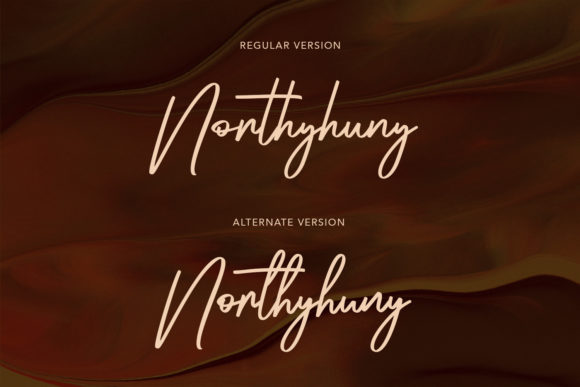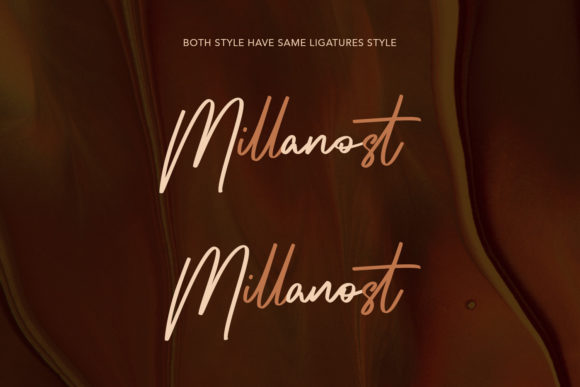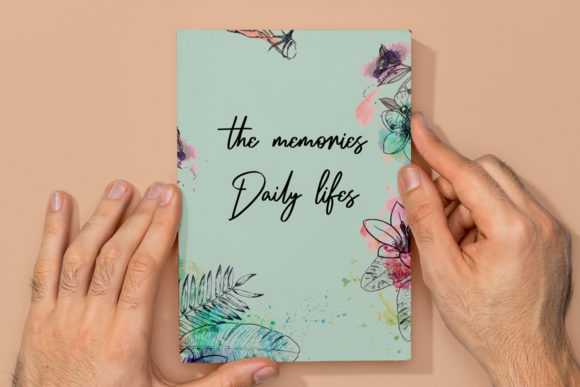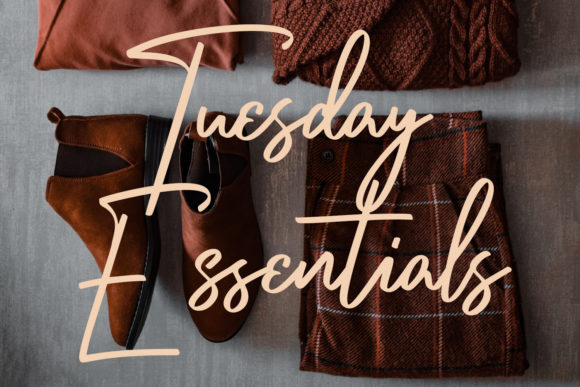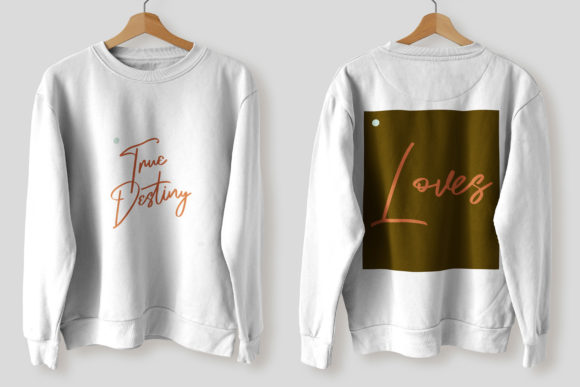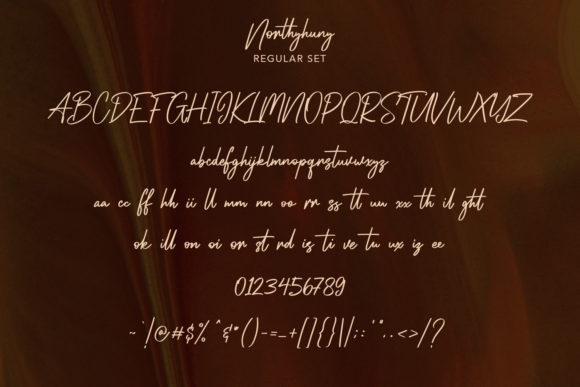
Introduction to Northyhuny Font Font
Fonts play a crucial role in design, and the Northyhuny Font font is a typeface that brings both character and versatility to any project. Whether you’re working on a branding project, a website, or a print design, the Northyhuny Font font offers a unique style that can elevate your work.
| 📌 Font Name | Northyhuny Font |
| 👤 Author | Maulana Creative |
Northyhuny is an adaptable and trendy script font.
Get inspired by its casual style and use it to create beautiful stationary art, eye-catching social media posts, and much more .
Key Features of Northyhuny Font Font
Why Choose Northyhuny Font Font?
The Northyhuny Font font is more than just a typeface – it’s a design tool that helps you communicate your message with style and clarity. Its unique character set and versatile design make it suitable for a wide range of applications, from elegant invitations to bold headlines.
With its carefully crafted letterforms and balanced proportions, the Northyhuny Font font ensures readability and visual appeal across all mediums.
What makes Northyhuny Font font special?
The Northyhuny Font font stands out with its unique design, exceptional readability, and versatility across various design applications.